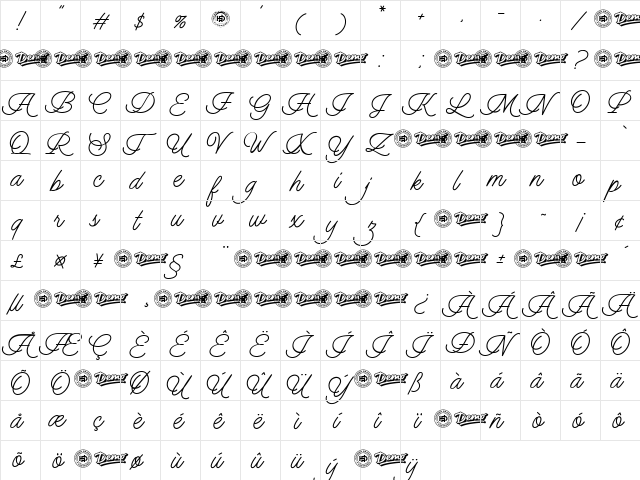
Harvey Script Regular
| Foundry | Hendra Pratama |
| Designer | Hendra Pratama |
Design Context for Harvey Script Typeface
Harvey Script flows with the natural rhythm of handwritten lettering, making it ideal for designs that call for warmth and personal expression.
Font Pairing: Combine Harvey Script with a simple geometric sans for maximum contrast — the tension between flowing curves and clean structure is a classic typographic pairing.
Pro Tip: Use Harvey Script for short runs of text — names, titles, or taglines. Extended body copy in script faces tires the eye quickly.